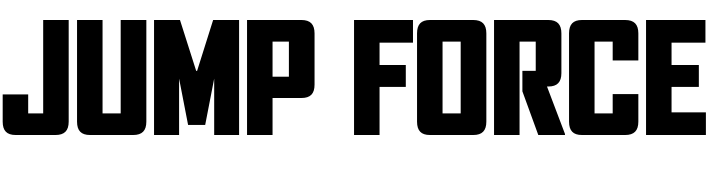
Jump Force Font
FightingJump Force is a crossover fighting game featuring characters from popular anime and manga franchises such as Dragon Ball, One Piece, and Naruto.
The font used for the title of the video game "Jump Force" seems to be a customized variant of the Agency FB Black font. Agency is a sans-serif typeface family with a geometric design, created by David Berlow for Font Bureau.